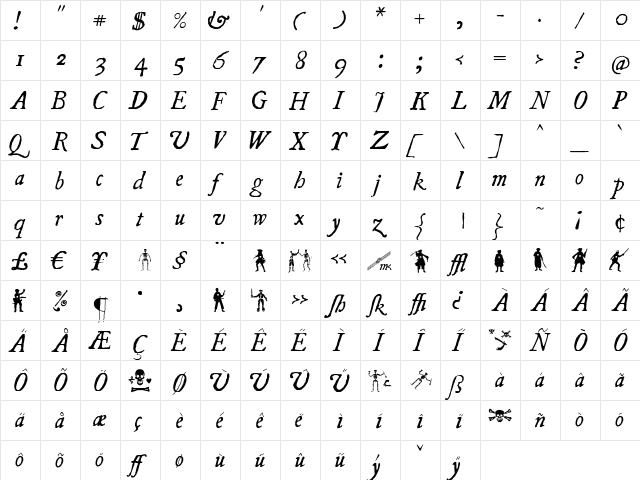
UglyQua Italic
Design Context for UglyQua Typeface
UglyQua is a composed and adaptable typeface that performs quietly and consistently across a wide range of design contexts. The slanted form adds forward momentum and visual energy.
Pro Tip: Try UglyQua for annotation and caption copy alongside an upright companion — the contrast in angle creates a dynamic but ordered typographic system.